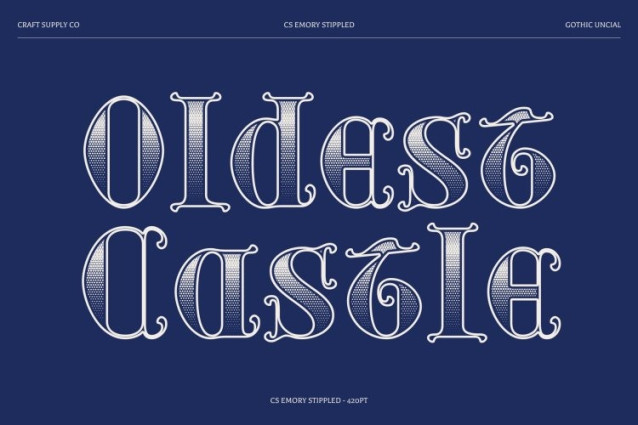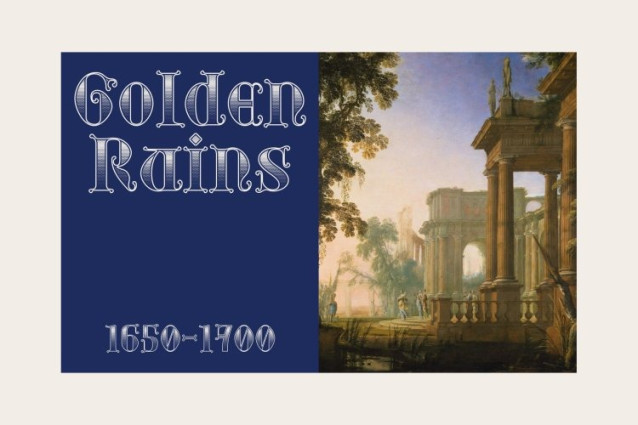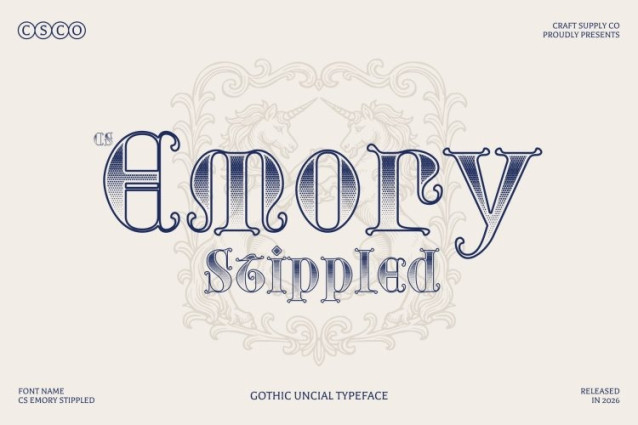
CS Emory Stippled Font
CS Emory Stippled Font – This is a bold display font that blends the historic charm of uncial script with the dramatic flair of Gothic design. Its rounded, semi-connected letterforms reflect the elegance of early medieval writing. Enhanced with a stippled texture, the font gains a delicate dotted surface that adds depth.
Rounded Letterforms with Gothic Intricacy
The distinctive design of this font features smooth, rounded shapes paired with intricate Gothic-inspired details. This combination creates a harmonious balance between softness and strength. The stippled finish enhances the ornamental qualities of the letterforms, giving the font a tactile, artistic appearance.
Perfect for Medieval and Fantasy Themes
Inspired by the visual language of medieval manuscripts, this is ideal for projects centered around fantasy, mythology, and historical storytelling. Its decorative style adds atmosphere and authenticity to book covers, posters, themed events, and immersive visual narratives.
Elegant for Modern Creative Applications
While rooted in historical influences, this font adapts beautifully to modern design contexts. The textured detailing and balanced forms allow it to work effectively in elegant branding, invitations, packaging, and editorial layouts.
Versatile for Cultural and Artistic Projects
From medieval-inspired branding to fantasy artwork and cultural design themes, offers a timeless typographic voice. Its fusion of uncial heritage, Gothic detail, and stippled texture makes it a distinctive choice for designers seeking to combine tradition, artistry, and visual depth.